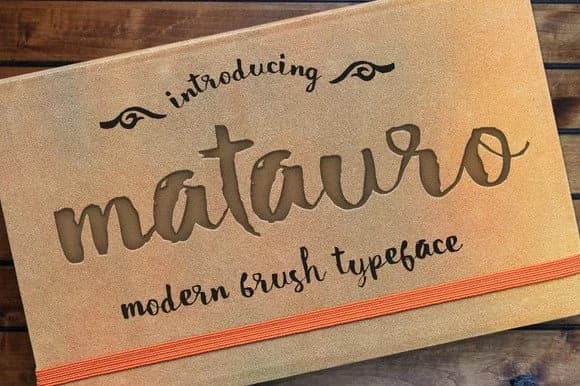
About Matauro Font
Matauro by Incools Design Studio is a flowing handwritten script that infuses authentic character and sophisticated warmth into contemporary creative work. The typeface channels genuine hand lettering through naturally expressive letterforms and organic stroke variations, maintaining excellent legibility across print and digital mediums. This balance between artistic expression and functional clarity makes it suitable for formal applications, casual creative work, and projects demanding personality and human connection.
Designers choose Matauro for specific applications where handcrafted aesthetics create impact: wedding invitation suites benefit from its romantic sensibility, Etsy product labels communicate artisanal credibility, boutique skincare packaging establishes premium positioning, and custom event signage showcases professional quality. The font excels for social media branding, greeting card design, personal stationery collections, editorial layouts, and packaging projects where a human-touched aesthetic strengthens visual communication. Its stylistic variations and comprehensive multilingual glyph support enable consistent branding across diverse design contexts and international markets.
Matauro Font is a script font that shines as a display or heading face. Pair it with a clean sans-serif or serif font for body text β the contrast creates a clear hierarchy while the two styles stay balanced and easy to read.
Matauro Font